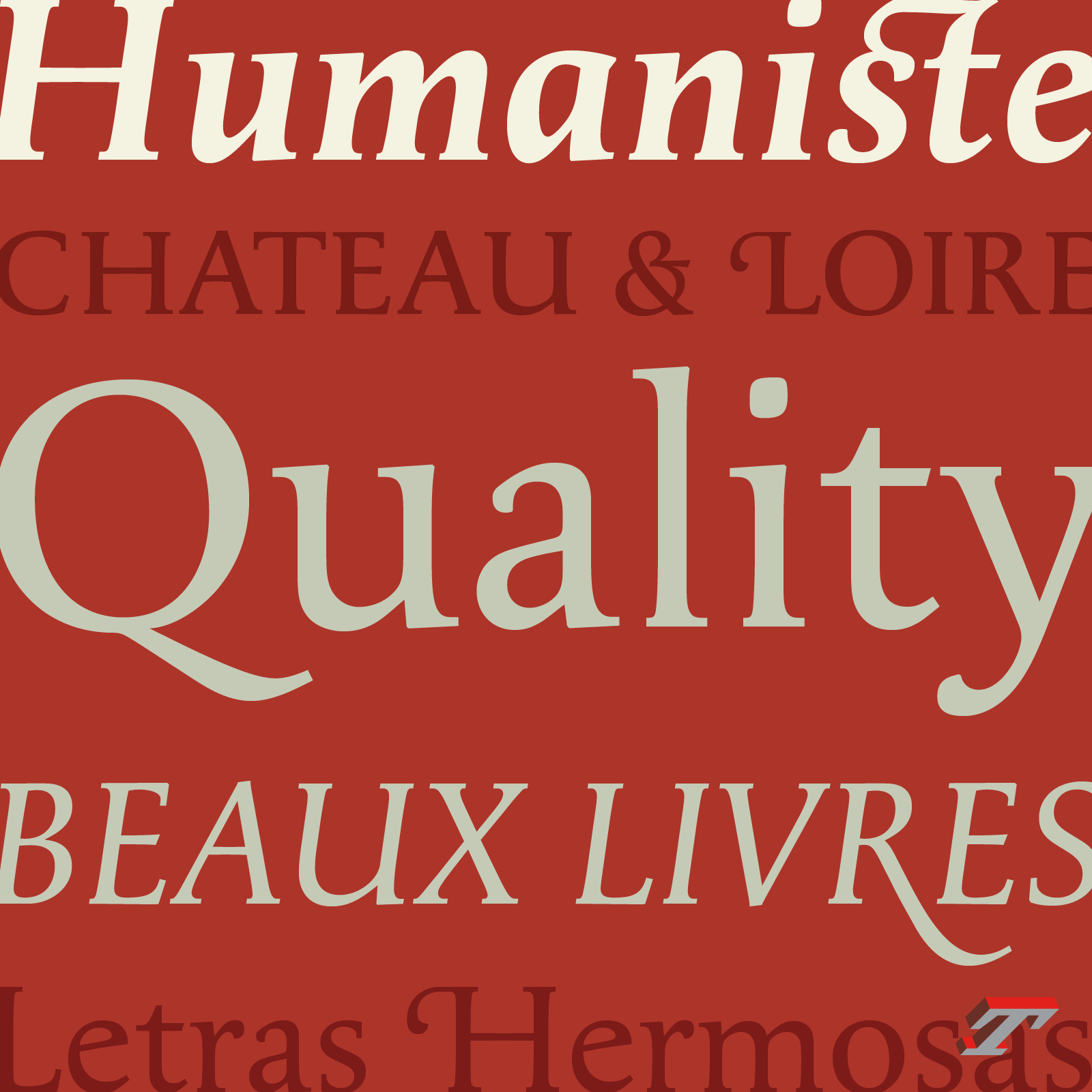
Apolline Font Free Download . The apolline typeface family was created in 1993 by jean françois porchez as a means to study the transition from renaissance. A serif typeface with 6 styles, available from adobe fonts for sync and. Apolline regular font free download. Download apolline desktop fonts, webfonts, free fonts. Fonts are in ttf, otf format. Fontstand allows trying apolline std typeface for free or renting it for just a fraction of the regular price. Explore apolline designed by jean françois porchez at adobe fonts. Download 186,286 free fonts at ufonts.com A great choice for highlighting your design elements. Using a catalog of over 990k+ fonts (commercial or free) and our font finder ai, we are able to display over 60 fonts for every image uploaded. Free fonts by category, type, daily updates.
Apolline Font Free Download A serif typeface with 6 styles, available from adobe fonts for sync and. Apolline regular font free download. The apolline typeface family was created in 1993 by jean françois porchez as a means to study the transition from renaissance. Fonts are in ttf, otf format. Download apolline desktop fonts, webfonts, free fonts. Free fonts by category, type, daily updates. Explore apolline designed by jean françois porchez at adobe fonts. A great choice for highlighting your design elements. Download 186,286 free fonts at ufonts.com Using a catalog of over 990k+ fonts (commercial or free) and our font finder ai, we are able to display over 60 fonts for every image uploaded. Fontstand allows trying apolline std typeface for free or renting it for just a fraction of the regular price. A serif typeface with 6 styles, available from adobe fonts for sync and.
ApollineRegularSC 001.000 Fonts Free Download Apolline Font Free Download The apolline typeface family was created in 1993 by jean françois porchez as a means to study the transition from renaissance. A great choice for highlighting your design elements. A serif typeface with 6 styles, available from adobe fonts for sync and. Explore apolline designed by jean françois porchez at adobe fonts. Download apolline desktop fonts, webfonts, free fonts. Fonts. Apolline Font Free Download.
Apolline Std Fonts I Love Typography Apolline Font Free Download A great choice for highlighting your design elements. Download apolline desktop fonts, webfonts, free fonts. A serif typeface with 6 styles, available from adobe fonts for sync and. Fonts are in ttf, otf format. Using a catalog of over 990k+ fonts (commercial or free) and our font finder ai, we are able to display over 60 fonts for every image. Apolline Font Free Download.
Apolline Std Fonts I Love Typography Apolline Font Free Download Apolline regular font free download. Download apolline desktop fonts, webfonts, free fonts. The apolline typeface family was created in 1993 by jean françois porchez as a means to study the transition from renaissance. Fonts are in ttf, otf format. Explore apolline designed by jean françois porchez at adobe fonts. Fontstand allows trying apolline std typeface for free or renting it. Apolline Font Free Download.
Apolline (291965) Regular Font Bundles Apolline Font Free Download Fonts are in ttf, otf format. The apolline typeface family was created in 1993 by jean françois porchez as a means to study the transition from renaissance. Explore apolline designed by jean françois porchez at adobe fonts. Download 186,286 free fonts at ufonts.com Using a catalog of over 990k+ fonts (commercial or free) and our font finder ai, we are. Apolline Font Free Download.
Apolline Sans Serif Modern typeface, Serif fonts, Pretty fonts Apolline Font Free Download A great choice for highlighting your design elements. Download apolline desktop fonts, webfonts, free fonts. Fonts are in ttf, otf format. A serif typeface with 6 styles, available from adobe fonts for sync and. Download 186,286 free fonts at ufonts.com Explore apolline designed by jean françois porchez at adobe fonts. Free fonts by category, type, daily updates. Apolline regular font. Apolline Font Free Download.
**Apolline** is a stunning modern typeface that boasts clean, thick Apolline Font Free Download Explore apolline designed by jean françois porchez at adobe fonts. A serif typeface with 6 styles, available from adobe fonts for sync and. Free fonts by category, type, daily updates. The apolline typeface family was created in 1993 by jean françois porchez as a means to study the transition from renaissance. Using a catalog of over 990k+ fonts (commercial or. Apolline Font Free Download.
Hannotate Sc Font Download Apolline Font Free Download Free fonts by category, type, daily updates. Apolline regular font free download. Using a catalog of over 990k+ fonts (commercial or free) and our font finder ai, we are able to display over 60 fonts for every image uploaded. A serif typeface with 6 styles, available from adobe fonts for sync and. Download 186,286 free fonts at ufonts.com Fonts are. Apolline Font Free Download.
Apolline Std Bold Desktop & Fonts I Love Typography Apolline Font Free Download 186,286 free fonts at ufonts.com Apolline regular font free download. A great choice for highlighting your design elements. A serif typeface with 6 styles, available from adobe fonts for sync and. Fonts are in ttf, otf format. Using a catalog of over 990k+ fonts (commercial or free) and our font finder ai, we are able to display over 60. Apolline Font Free Download.